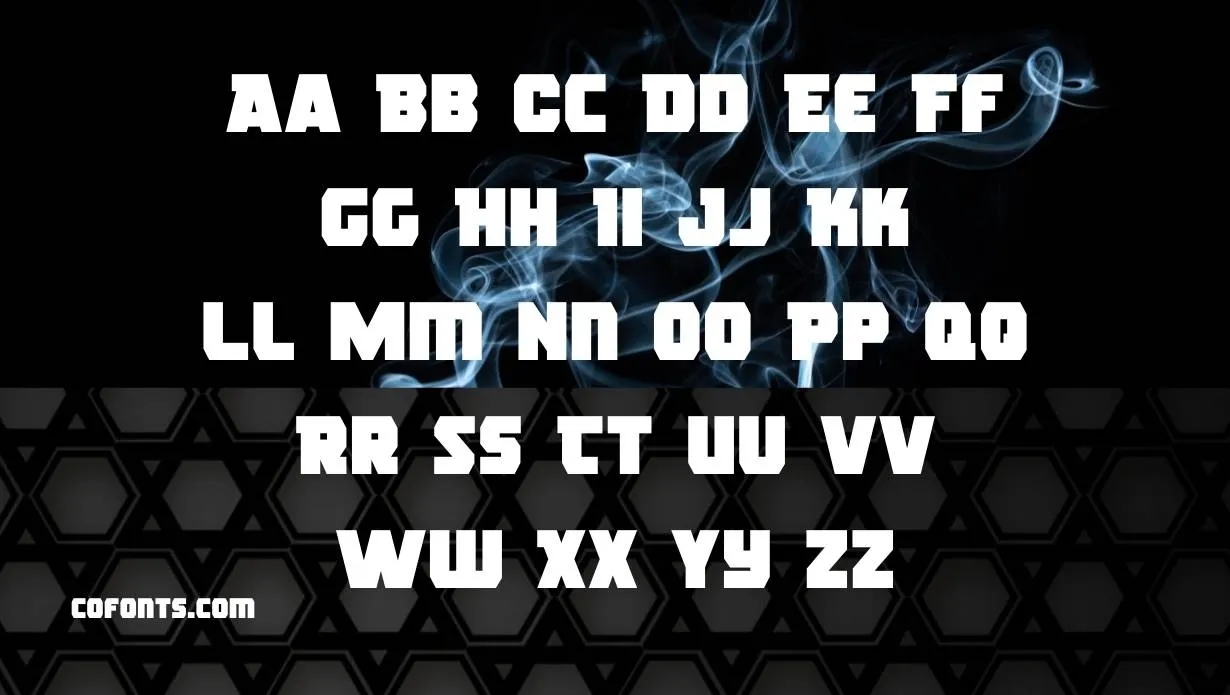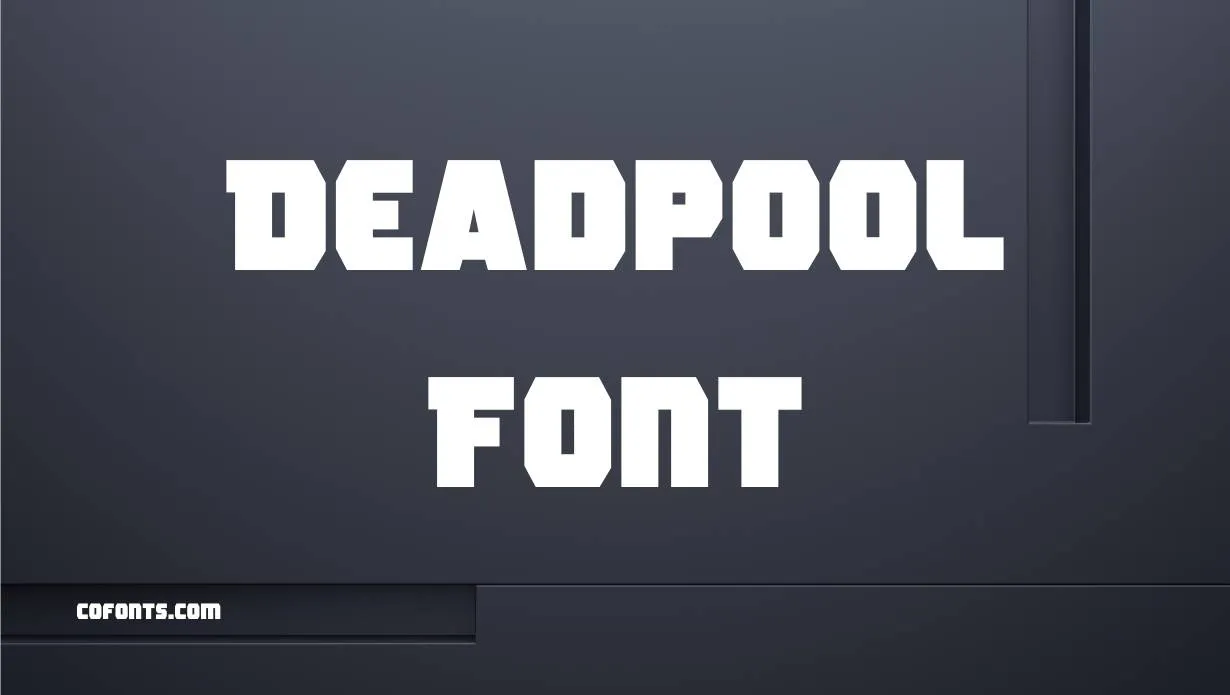
Introducing you to the Deadpool Font, it is a 2016 American superhero film established on the marvel comics character of the equal identify, disbursed by using utilizing the 20th-century fox. Inside the film, Wade Wilson hunts down the person who gave him mutant skills, but in addition to a scarred physical seem, seeing that of the antihero Deadpool.
The typeface contains only 1 style that possessed TTF features and full of glyphs characteristics. It is the eighth installment of the x-guys film sequence and the first standalone Deadpool movie. It is a fabulous font that looks like league spartan. However, try its online generator tool feature for gaining the typeface style immediately and without any downloading.
These font elements have 22 fashionable styles, and every kind expresses the creativity of its designers engaged in it. Because of the reputation of this typeface, it is now so much easy for any person to predict the identity of the font very swiftly.
Usage of Deadpool Font
Name | Deadpool Font |
Designer | FZ Fonts |
Style | Display |
The font is a professional display category typeface with a techno look. The designer of this typeface is FZ Fonts. It is not a google font.